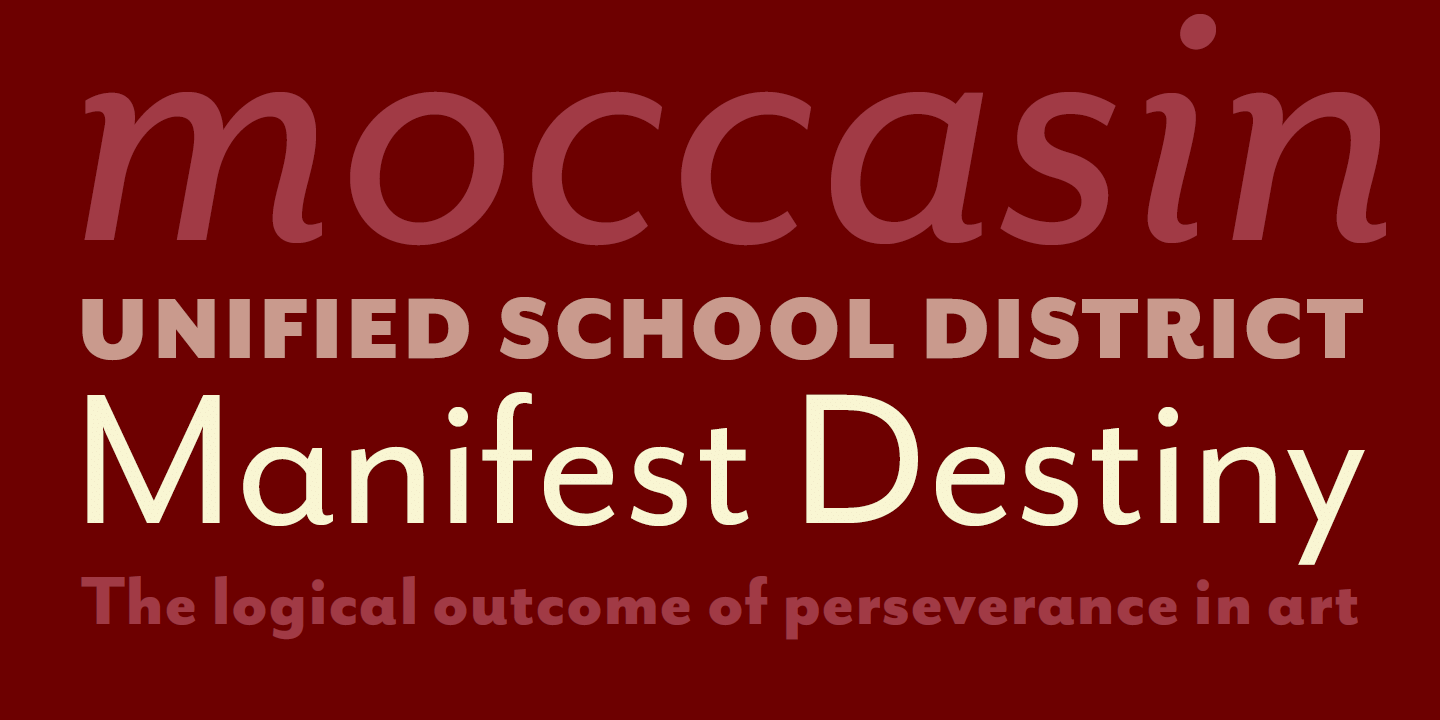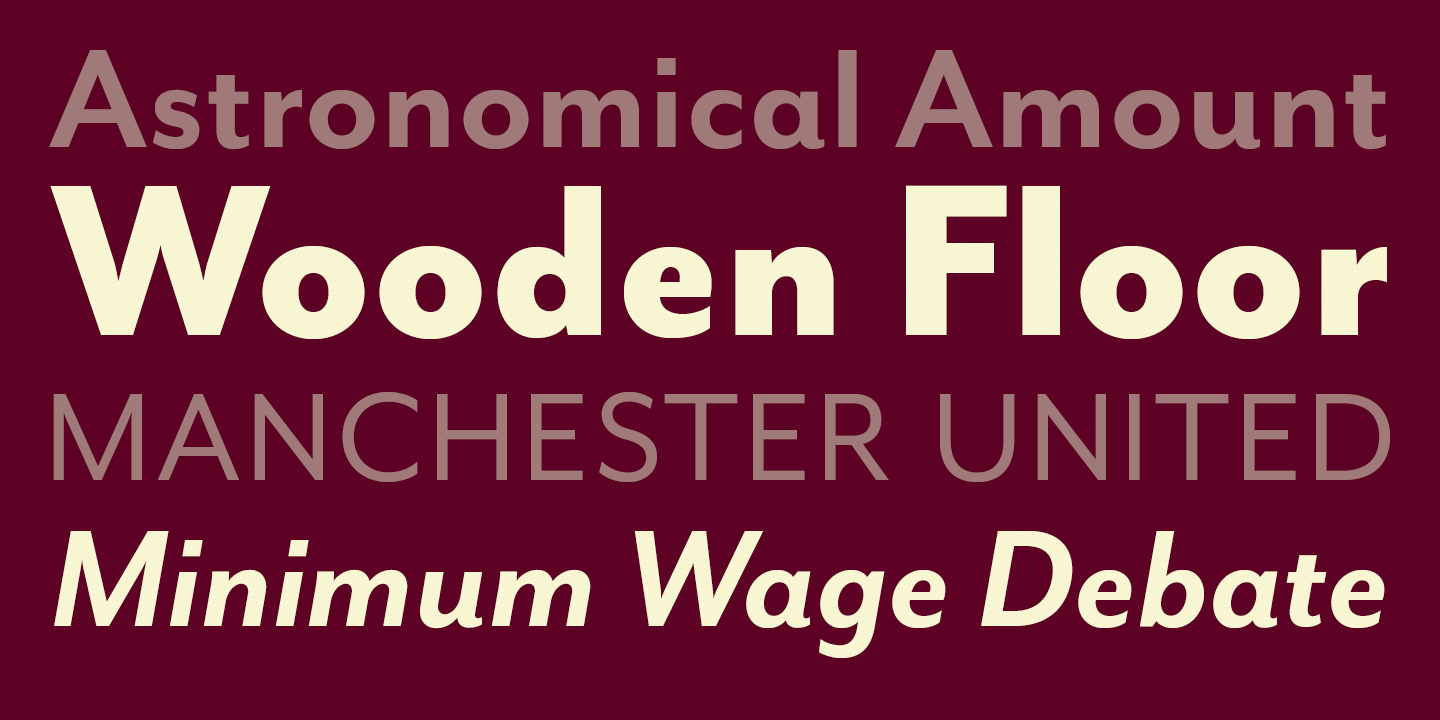
Mr Eaves Font Family
Mr eaves sans and mr eaves modern. It was styled after baskerville, the famous transitional serif typeface designed in 1757 by john baskerville in birmingham, england. Complete family of 5 fonts:
Dowonload this fonts for graphic design , web fonts. Originally designed in 1996, mrs eaves was zuzana licko’s first attempt at the design of a traditional typeface. It was styled after baskerville, the famous transitional serif typeface designed in 1757 by john baskerville in birmingham, england.
Mrs eaves contains 9 styles and family package options. The modern italic is free of tails, and overall the modern exhibits more repetition of forms, projecting a cleaner look. Created by zuzana licko, this addition to the emigre type library expands the versatility of the original mrs eaves with two complementary families:
Mr Eaves Sans And Mr Eaves Modern.
He produced the font in 1957 england, birmingham and the font name is after his wife name sarah eaves. It can easily be matched to an incredibly large set of projects, so add it to your creative ideas and notice how it makes them stand out! Mr eaves xl modern font family.
This Font Takes The Characteristics Of Baskervill Font Which Becomes More Powerful And Can Be Used In Headings, Book Blurbs, Logos, Posters Through Its Horizontal Height And A Wide Range Of Glyphs And Ligatures.
Eaves font which was designed by zuzana licko in 1996. Mr eaves xl sans and xl modern feature four weights with accompanying italics, small caps and alternate characters. Mr eaves xl modern was published by emigre.
Mr Eaves Xl Allows For A Wide Variety Of Uses And Is Perfectly Suitable For Lengthy Text Settings.